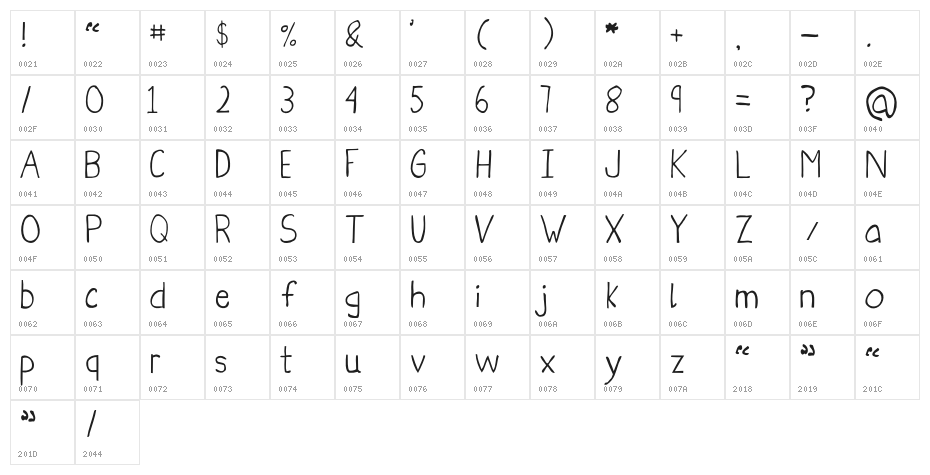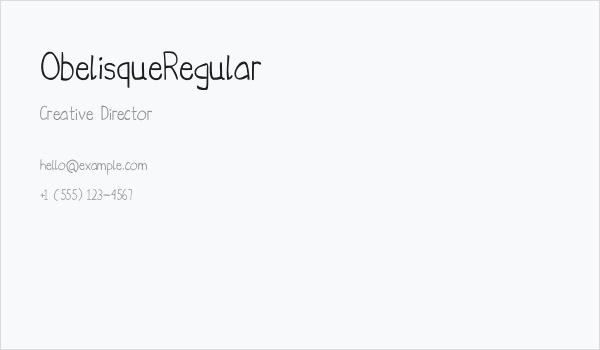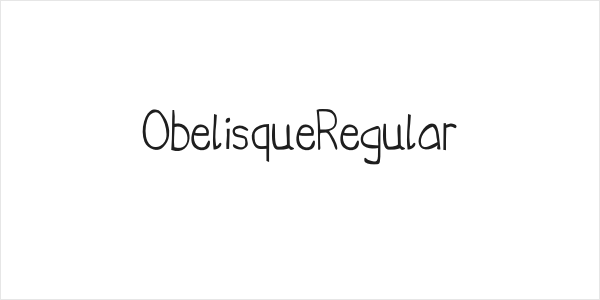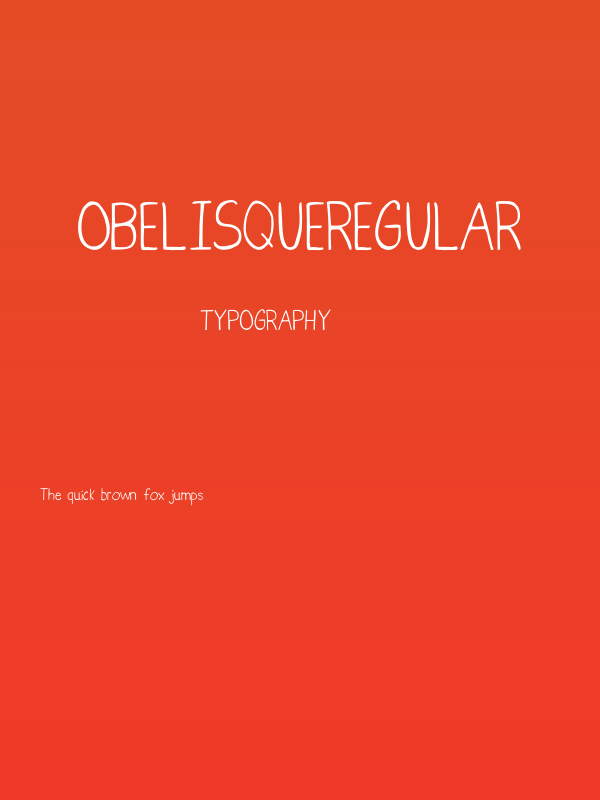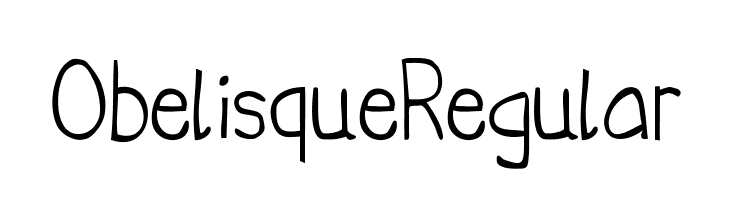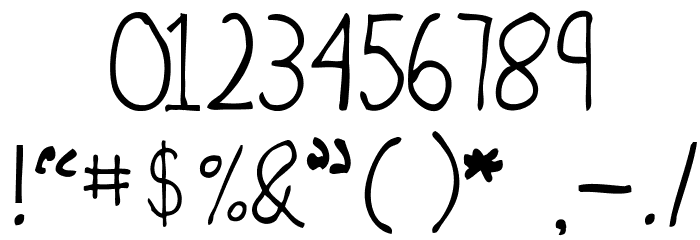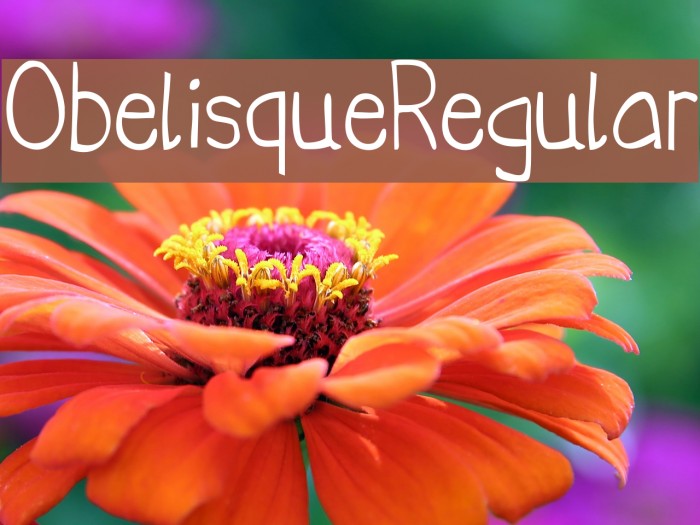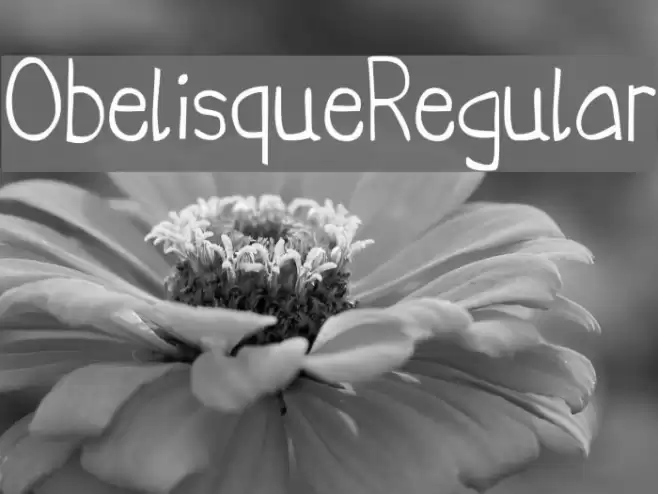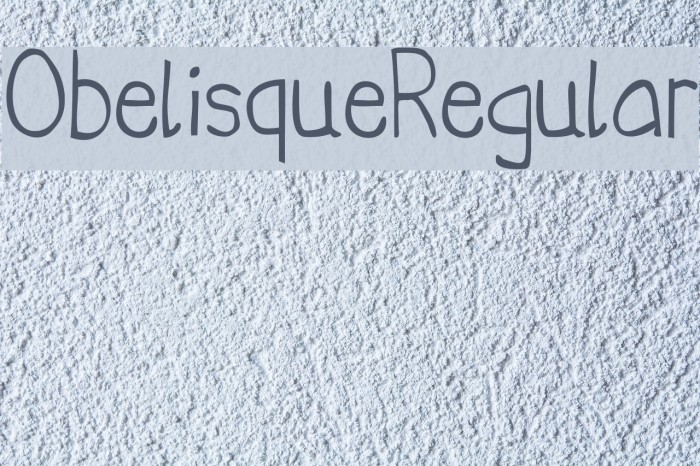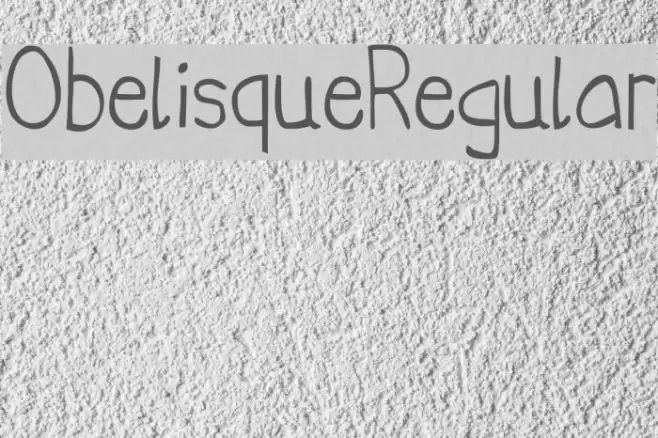
ObelisqueRegular Font
このフォントには 90 文字が含まれています。文字をクリックして詳細を表示。
| 全体的なスタイル | Casual and playful |
| 用途 | Headlines, informal text, and creative projects. |
| おすすめプロジェクト | Ideal for greeting cards, children's books, casual branding, and social media graphics. |